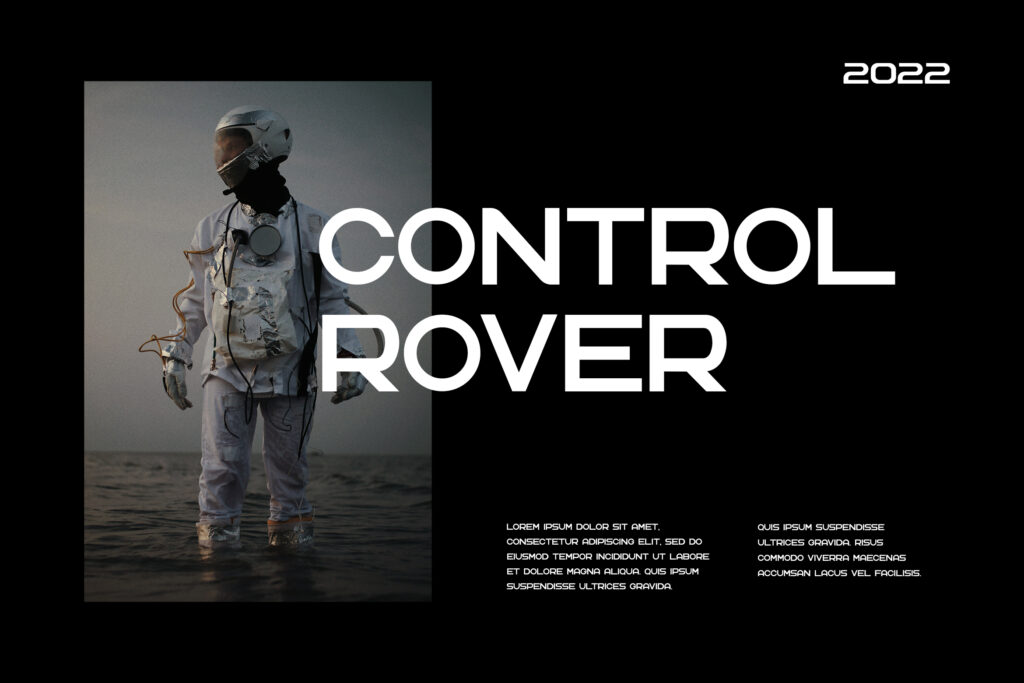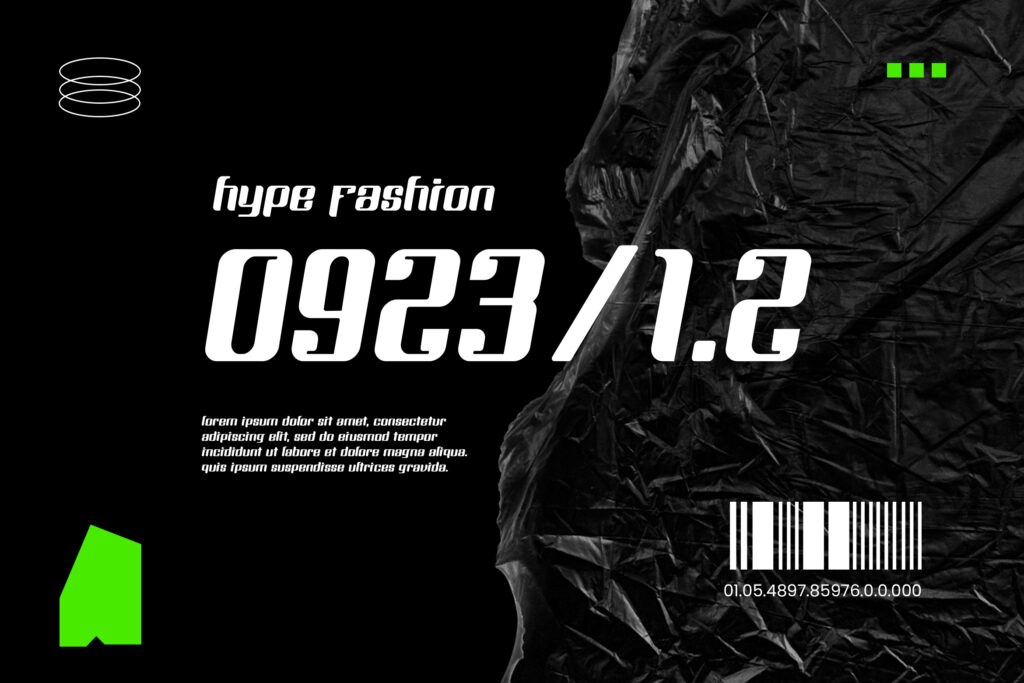
10 Best Font Logo Design 2025
When it comes to branding, a logo is often the first thing that leaves a lasting impression on potential customers. The right font can transform an ordinary logo into a visually stunning and memorable representation of your business. In 2025, designing a logo has become more accessible than ever, thanks to various powerful font logo design tools.
Whether you’re a startup or an established company, choosing the perfect font is essential in creating a logo that resonates with your audience. This article will explore the best font logo design 2025 tools to help you craft a logo representing your brand’s essence.
10 Best Font Logo Design 2025
Here are the 10 best font logo design 2025:
1. Ezme Luxury Sans Serif Font
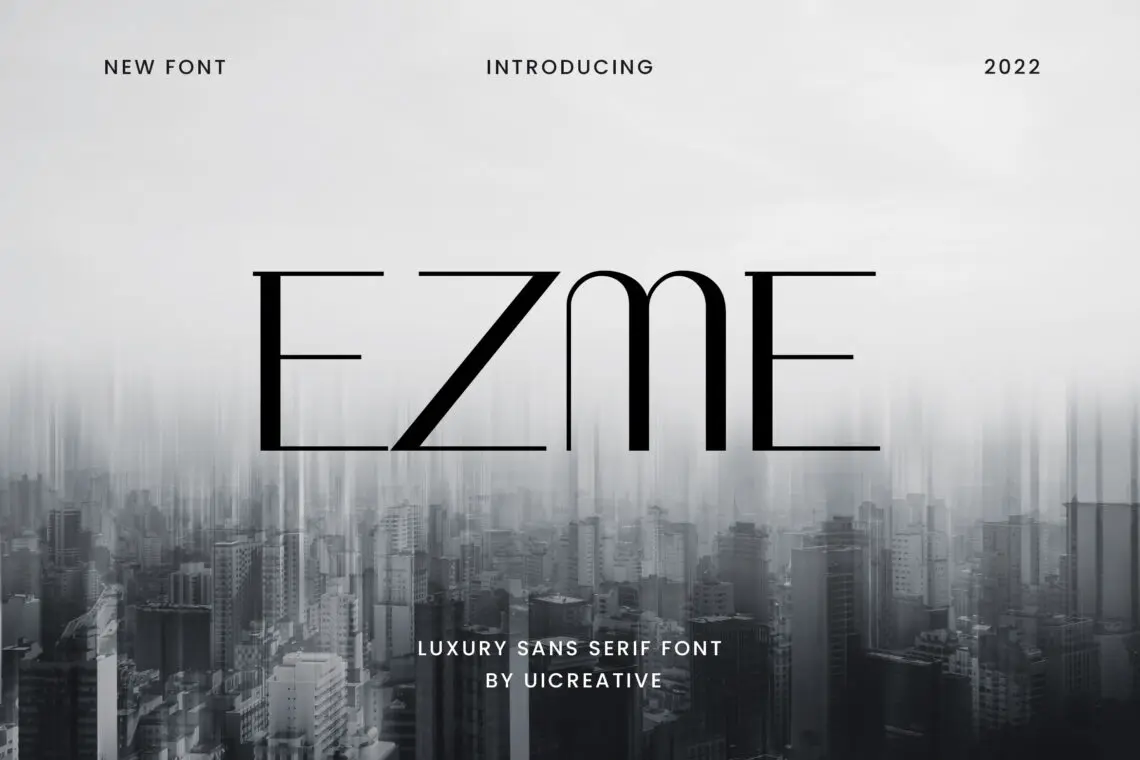
Ezme Luxury Sans Serif is a sleek, modern typeface that embodies elegance and refinement with every letterform. Its crisp lines and balanced proportions give it a sophisticated, minimalist appeal, making it perfect for luxury branding, high-end fashion, premium product packaging, and elegant digital experiences. The font’s clean and contemporary style ensures exceptional readability while maintaining a sense of exclusivity and class. Whether you’re designing a chic logo, a stylish website, or a luxurious print layout, Ezme Luxury Sans Serif adds a touch of opulence and contemporary flair to elevate any project to new heights of sophistication.
2. Mightiest Sans Serif Font
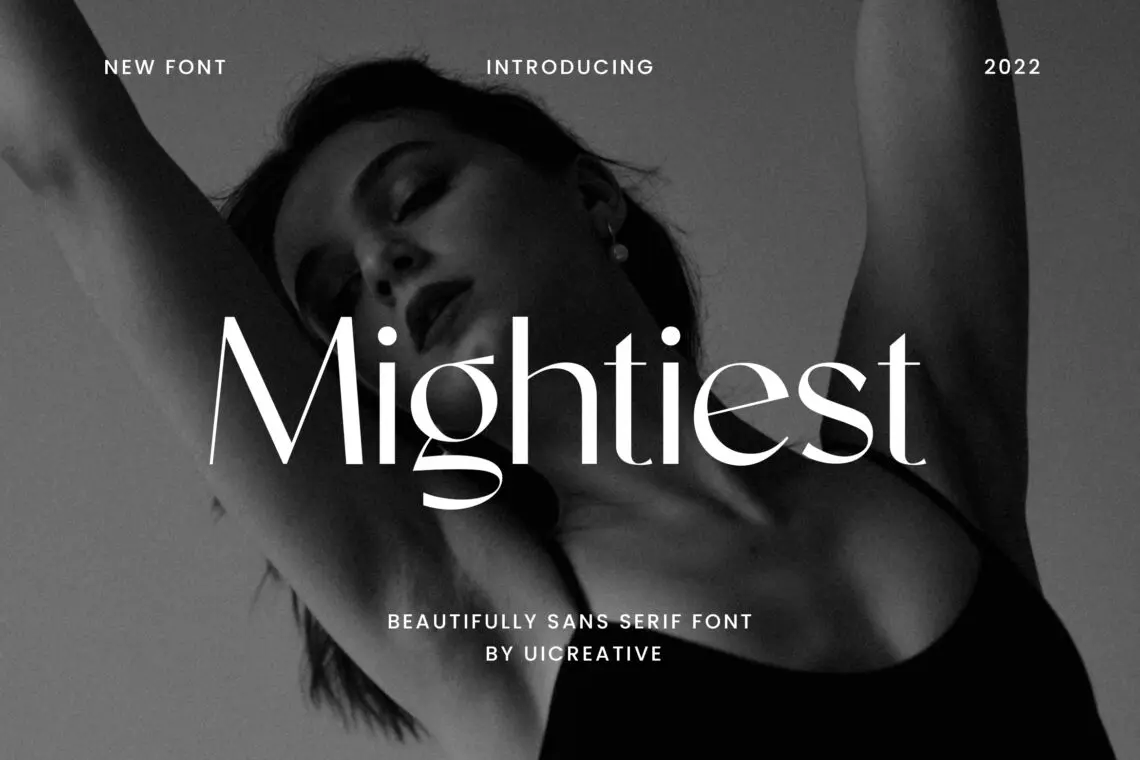
Mightiest Sans Serif is a bold and powerful typeface that commands attention with its strong, clean lines and modern geometric design. Perfectly suited for high-impact branding, advertising, and digital design, this font brings a sense of strength and confidence to any project. Its sharp edges and precise structure offer exceptional readability while maintaining a contemporary, dynamic aesthetic. Whether you’re creating a logo, a headline, or promotional material, Mightiest Sans Serif adds a commanding presence and a touch of modernity that makes your designs stand out with authority and style.
3. Ragniart Display Serif Font
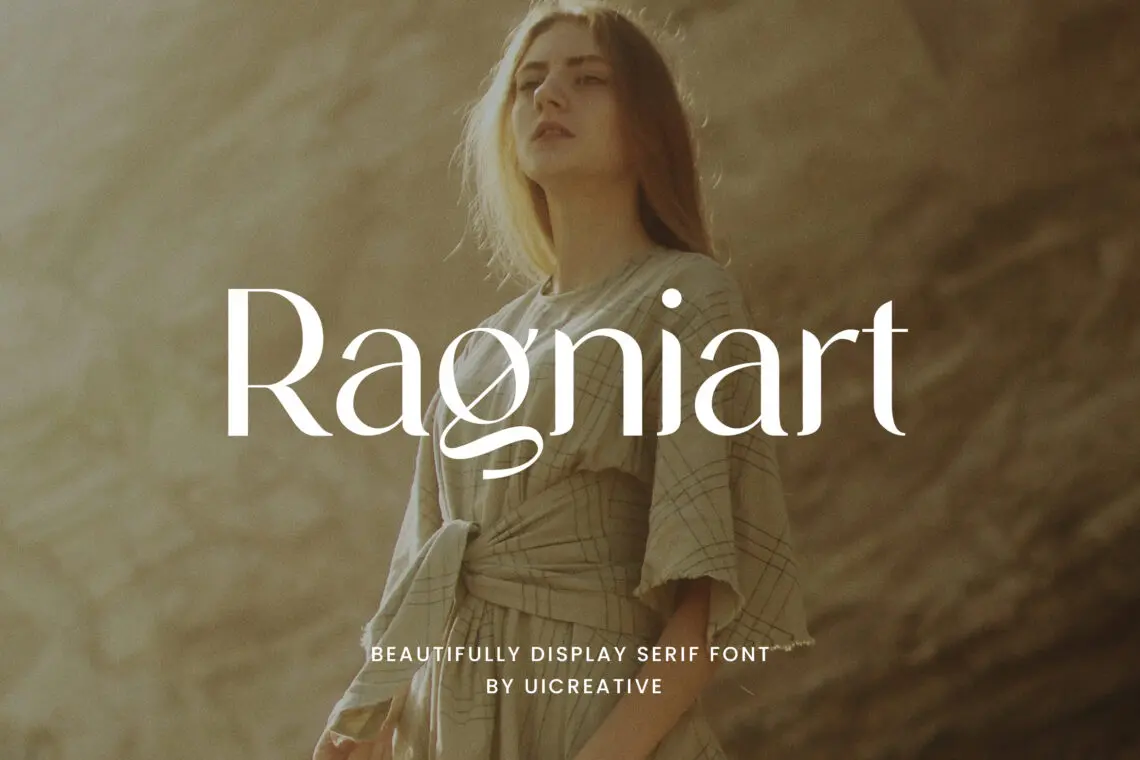
Ragniart Display Serif is a striking and bold typeface that combines artistic flair with timeless elegance. Its distinctive serifs and unique letterforms make it perfect for creating high-impact headlines, branding, and editorial designs that demand attention. Ideal for fashion, luxury, and creative industries, Ragniart adds a touch of sophistication and personality to any project. The carefully crafted proportions and sharp details ensure that it stands out while maintaining readability and style. Whether you’re designing a logo, a magazine cover, or a stylish advertisement, Ragniart Display Serif elevates your design with its bold presence and refined elegance.
4. Romania Elegant Serif Font
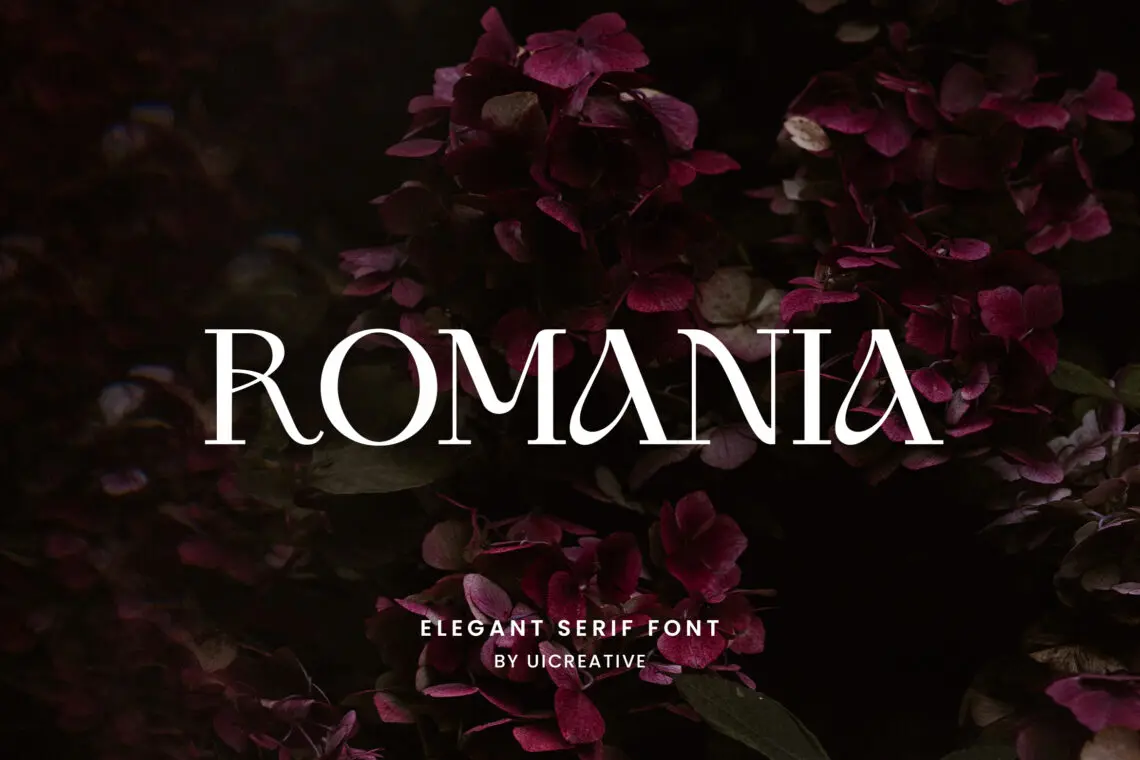
Romania Elegant Serif is a refined and timeless typeface that blends classic sophistication with modern elegance. Its beautifully crafted serifs and graceful curves bring a sense of luxury and prestige to any design, making it ideal for high-end branding, editorial layouts, invitations, and upscale product packaging. With a perfect balance between tradition and contemporary style, Romania Elegant Serif ensures both readability and visual charm, making it versatile for a wide range of projects. Whether you’re creating a logo, a stylish brochure, or an elegant website, this font adds a distinguished touch of class and elegance to every design.
5. Mustachio Elegant Serif Font
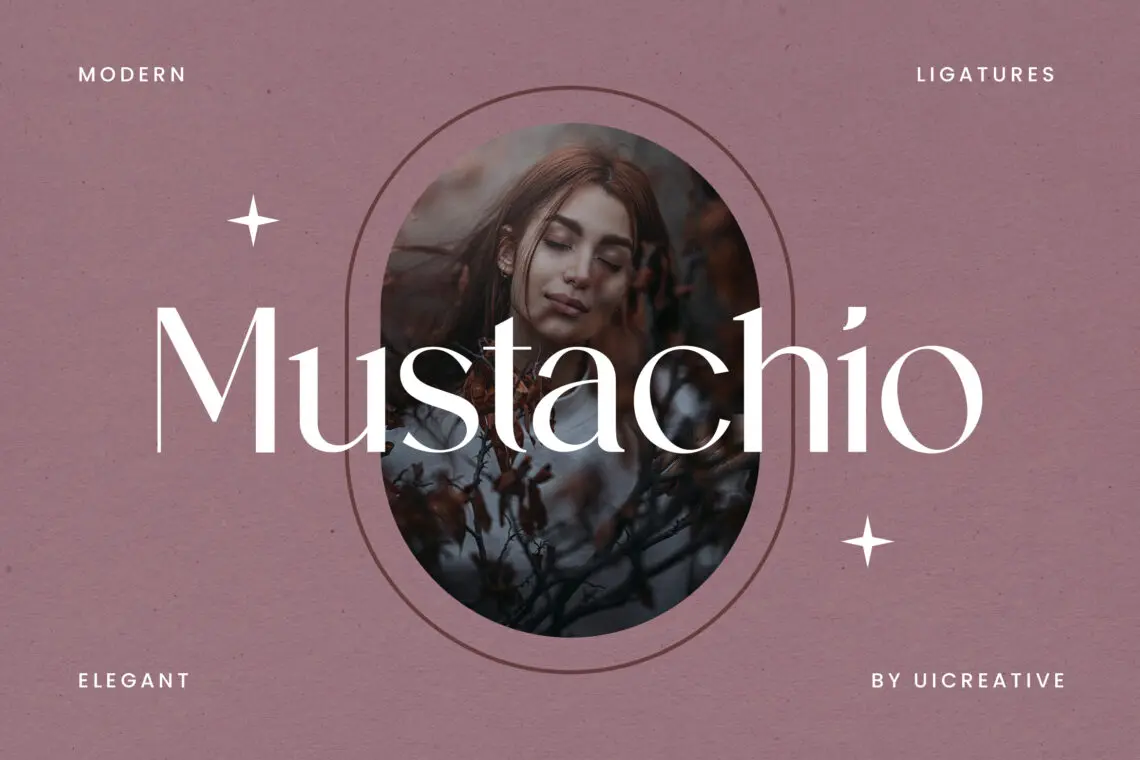
Mustachio Elegant Serif is a sophisticated and charismatic typeface that blends classic refinement with a modern, stylish edge. Featuring gracefully sculpted serifs and smooth curves, this font exudes luxury and personality, making it the perfect choice for high-end branding, editorial designs, invitations, and upscale packaging. Its bold yet elegant presence ensures strong visual appeal while maintaining excellent readability. Whether you’re crafting a premium logo, a chic magazine layout, or a timeless advertisement, Mustachio Elegant Serif adds a touch of class and uniqueness to elevate any design with effortless sophistication.
6. Spinmaster Modern Display Serif Font
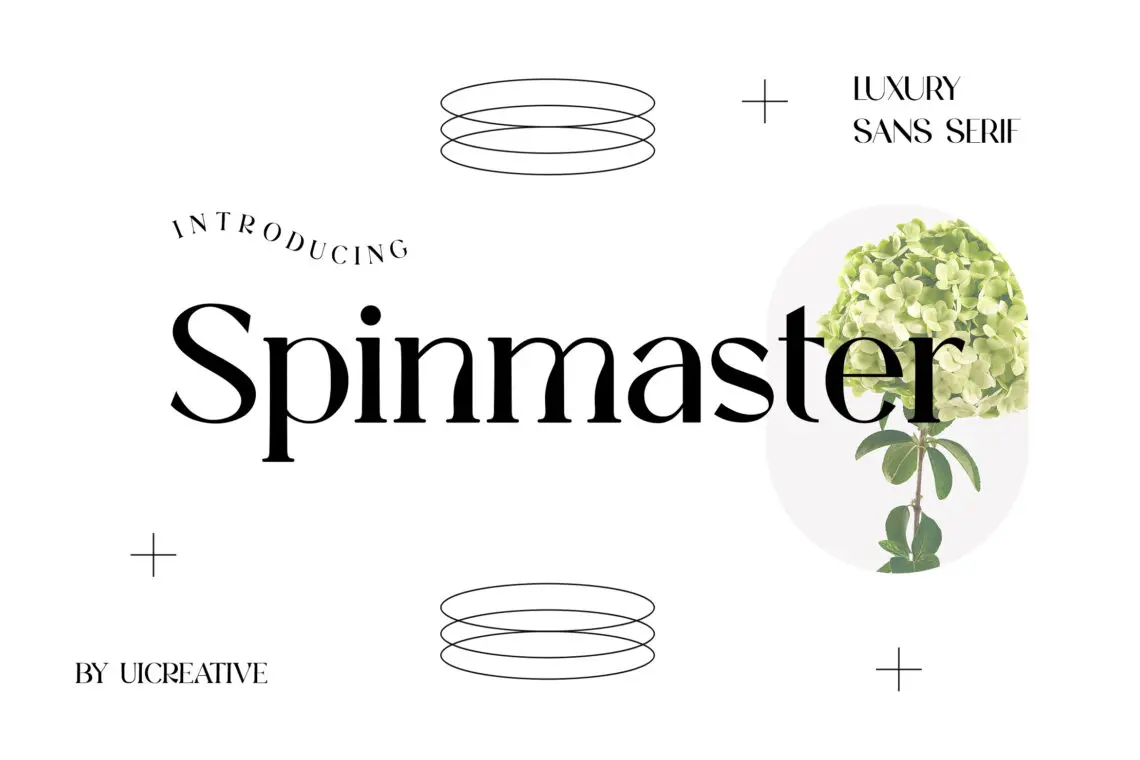
Spinmaster Modern Display Serif is a bold and stylish typeface that fuses contemporary aesthetics with timeless elegance. Featuring sharp serifs, dynamic letterforms, and a striking presence, this font is perfect for eye-catching headlines, luxury branding, editorial layouts, and high-end product packaging. Its refined yet modern design ensures both sophistication and readability, making it ideal for projects that demand a strong visual impact. Whether you’re designing a logo, a fashion campaign, or an upscale advertisement, Spinmaster Modern Display Serif adds a touch of class and confidence, elevating your design with its sleek, high-fashion appeal.
7. Wave Contempo Hipster Sans Serif Font
Wave Contempo Hipster Sans Serif is a trendy and effortlessly cool typeface that blends modern minimalism with a laid-back, artistic vibe. With its clean lines, subtle curves, and contemporary aesthetic, this font is perfect for branding, social media graphics, fashion labels, and creative projects that demand a fresh and stylish touch. Its versatility ensures excellent readability while maintaining a unique, hipster-inspired character that stands out in any design. Whether you’re crafting a sleek logo, a trendy website, or bold typography for posters, Wave Contempo brings a modern, urban edge that perfectly balances sophistication and casual flair.
8. Woodpecker Sans Serif Font
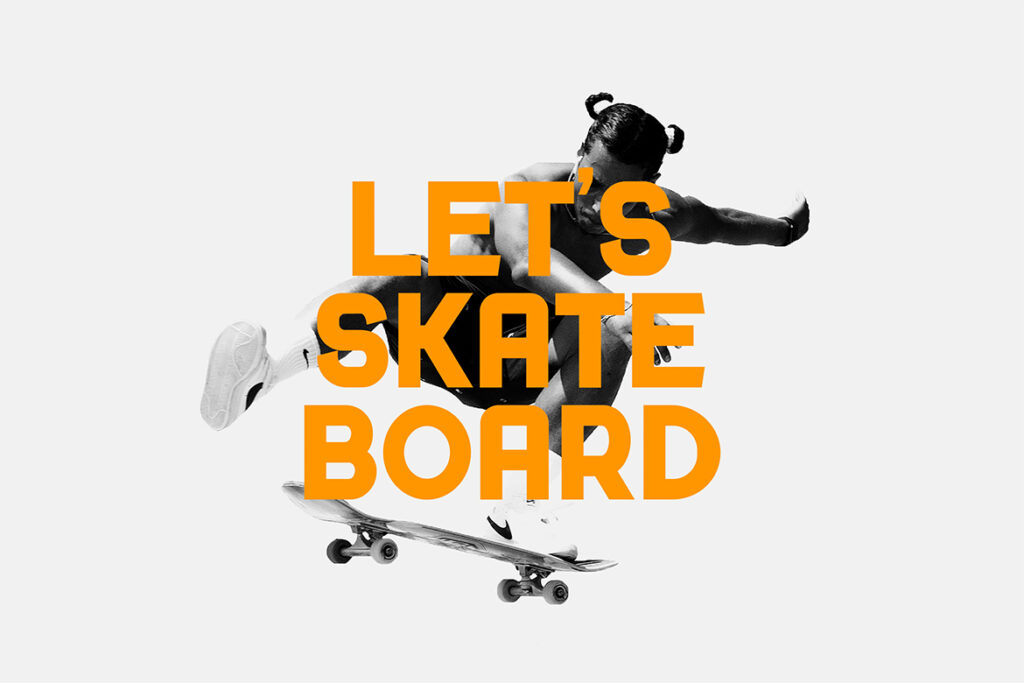
Woodpecker Sans Serif is a modern and versatile typeface that combines clean precision with a touch of warmth and personality. Its smooth curves and well-balanced proportions make it an excellent choice for branding, editorial design, packaging, and digital projects that require a fresh yet professional look. With a minimalist yet distinctive style, Woodpecker offers exceptional readability while maintaining a contemporary and approachable feel. Whether you’re designing a sleek logo, a stylish website, or bold headlines, this font delivers a refined aesthetic that is both timeless and effortlessly modern.